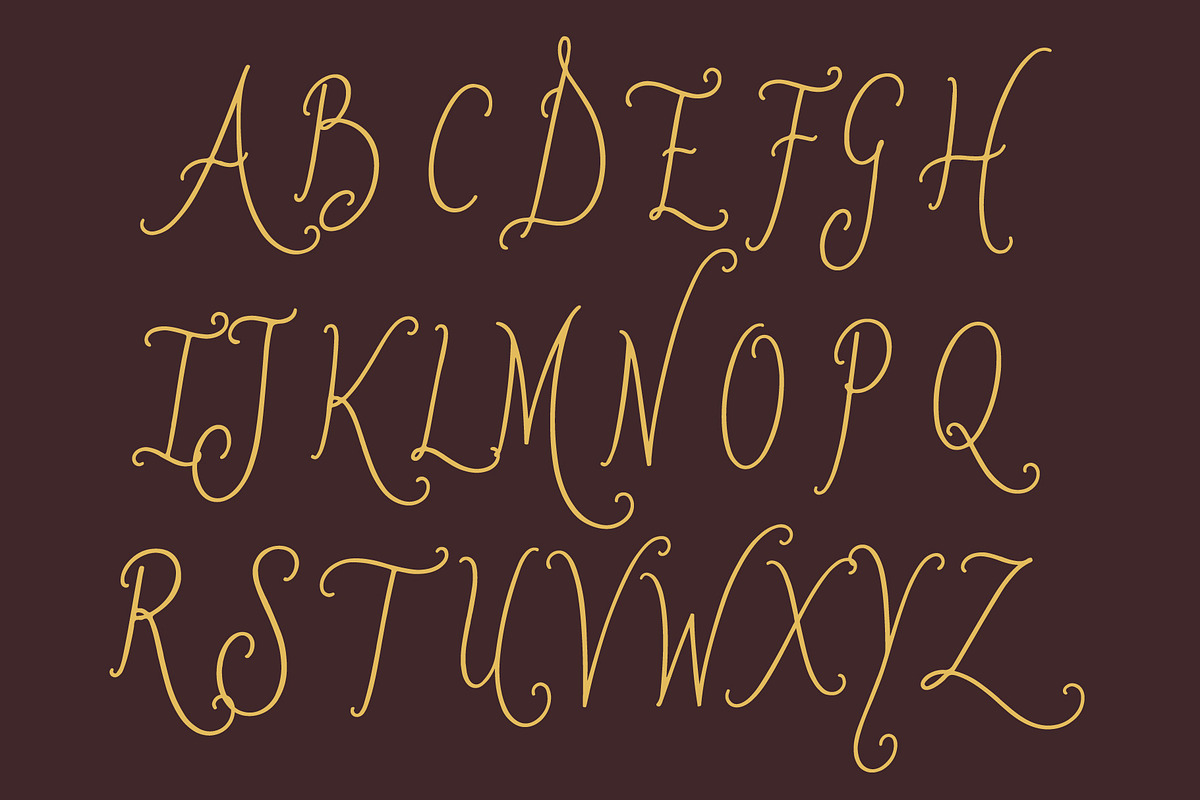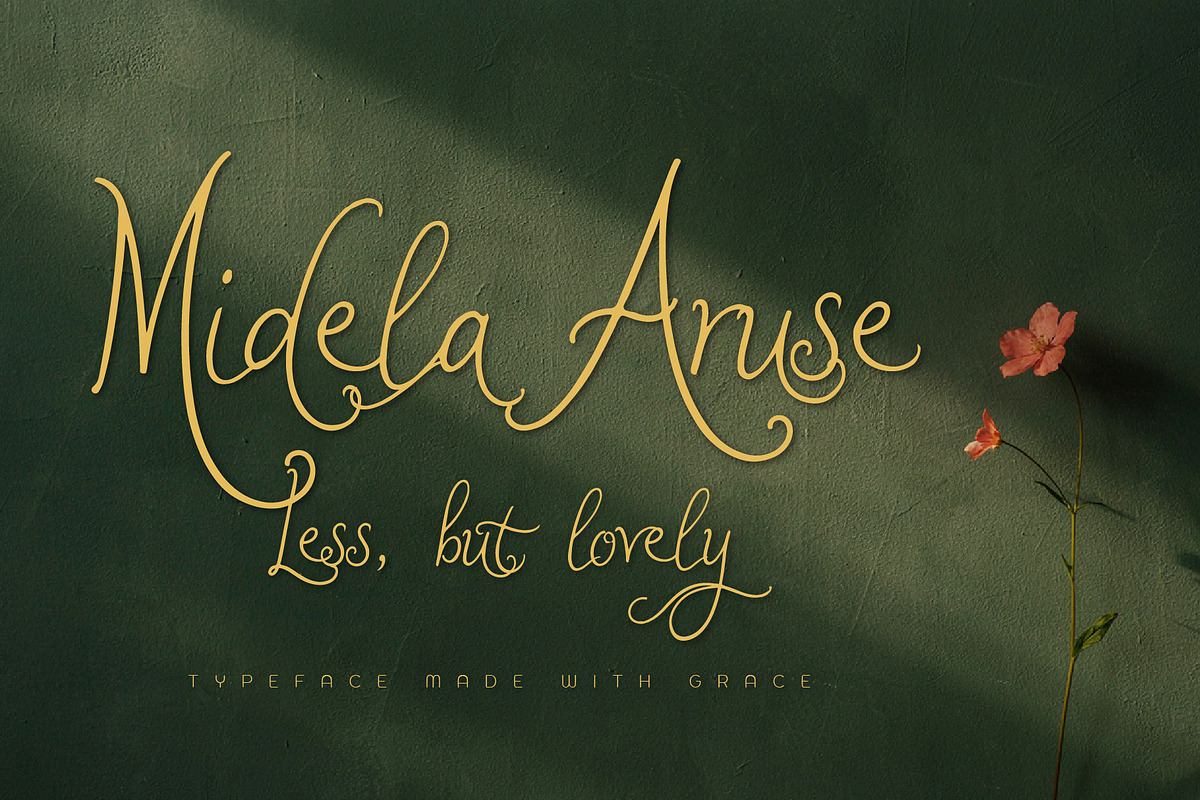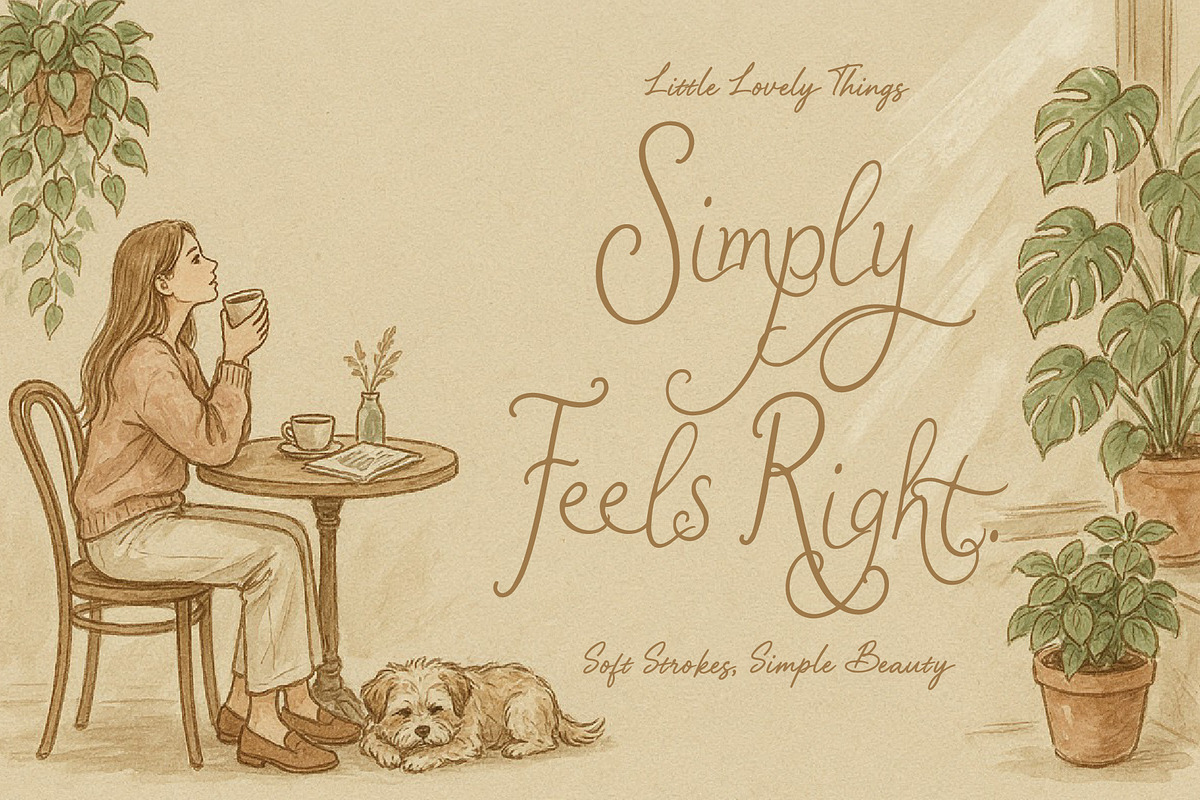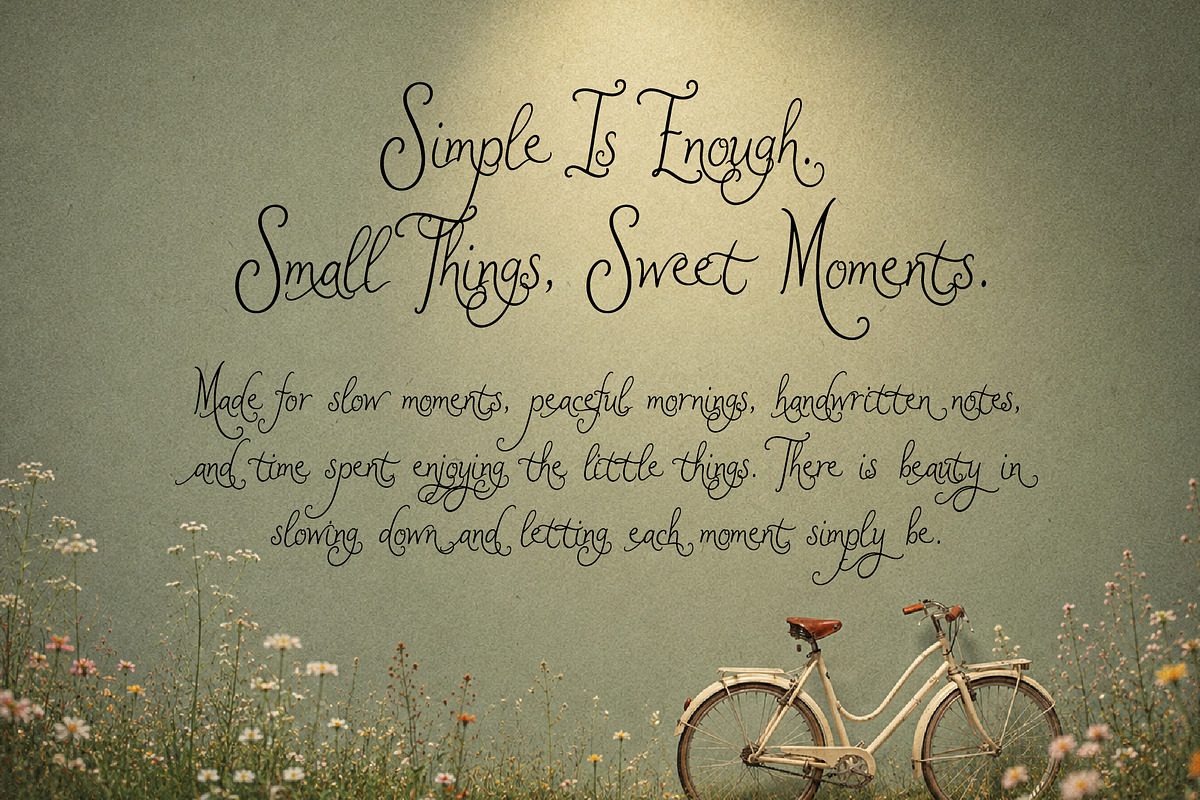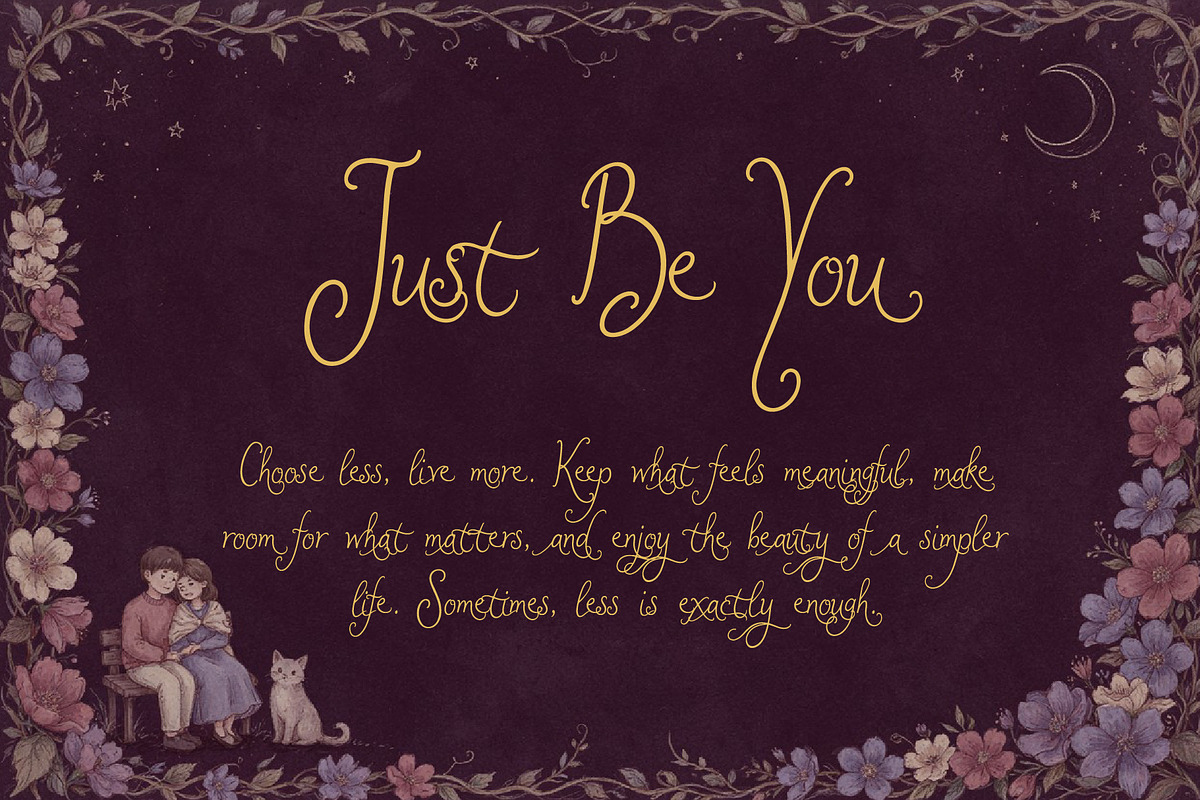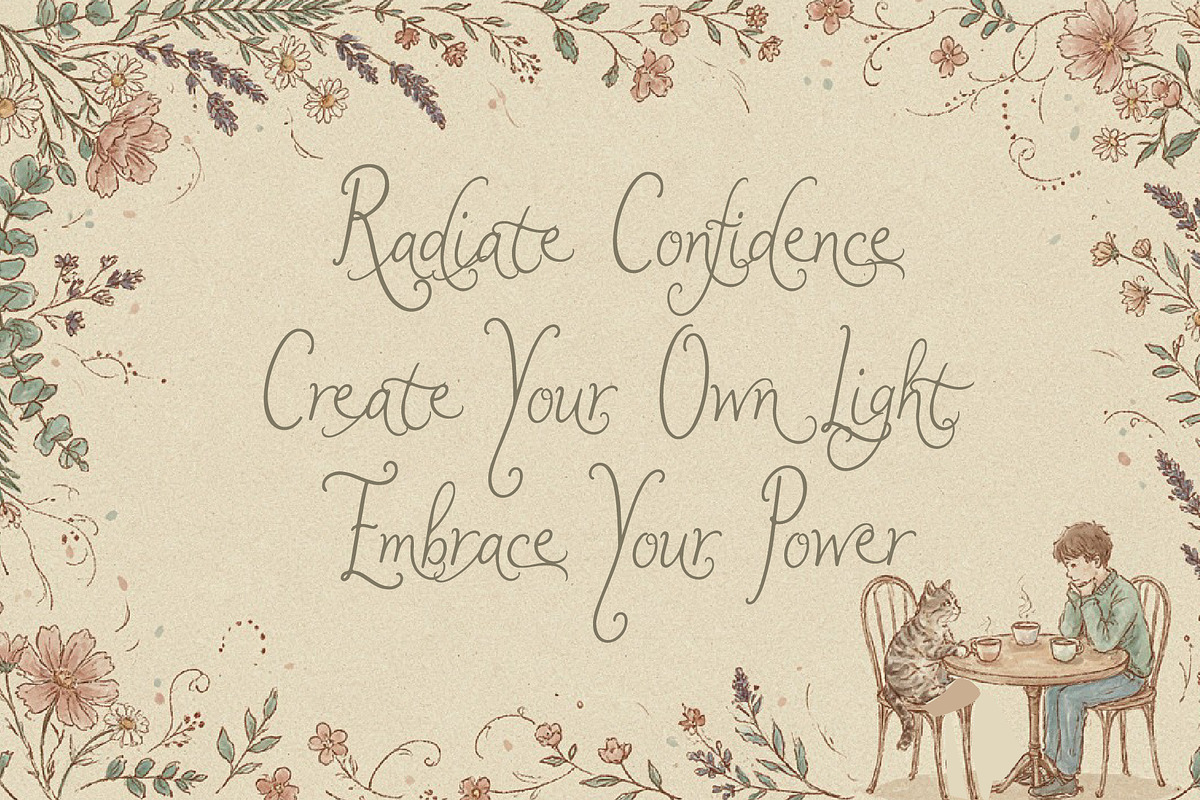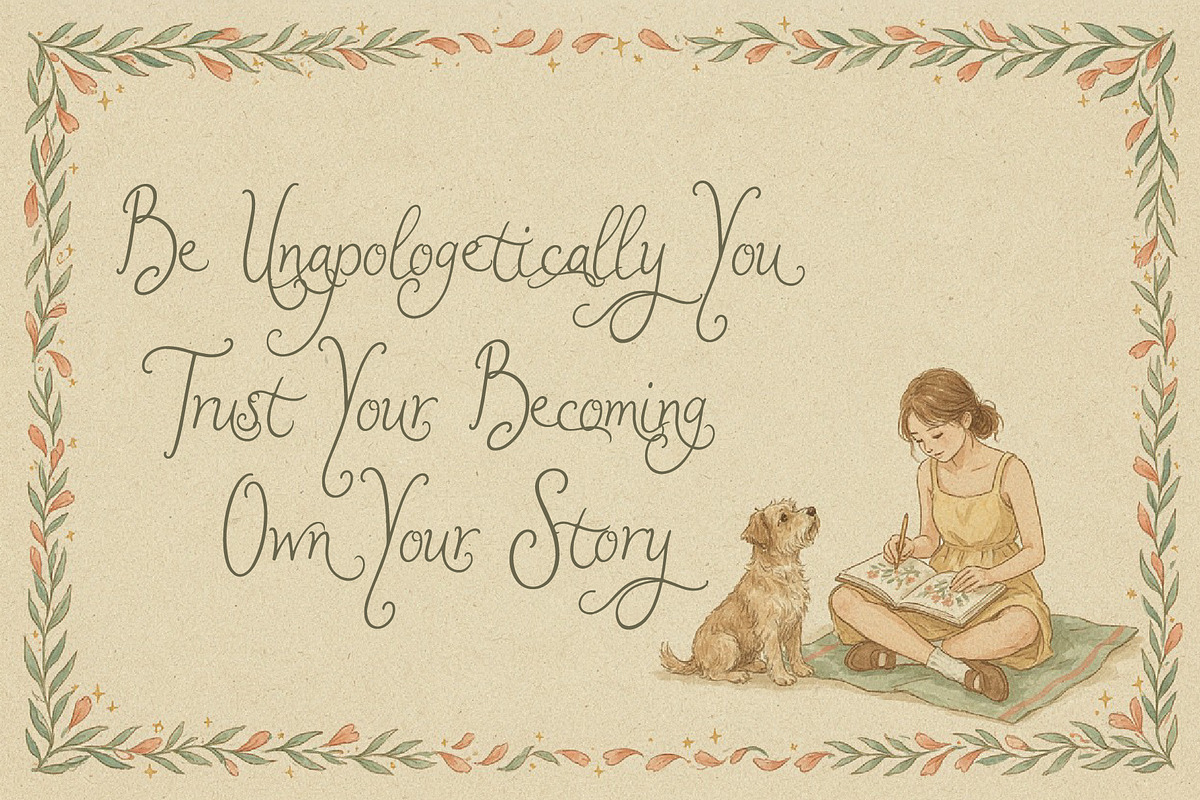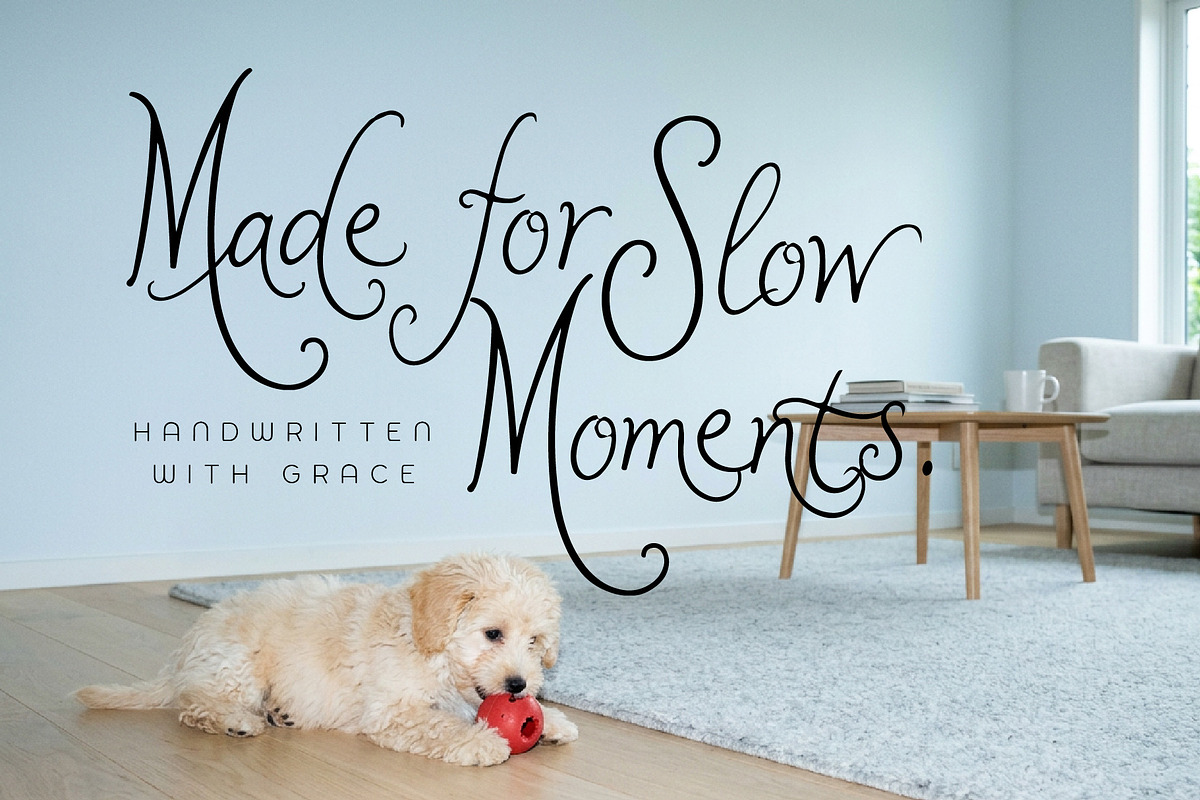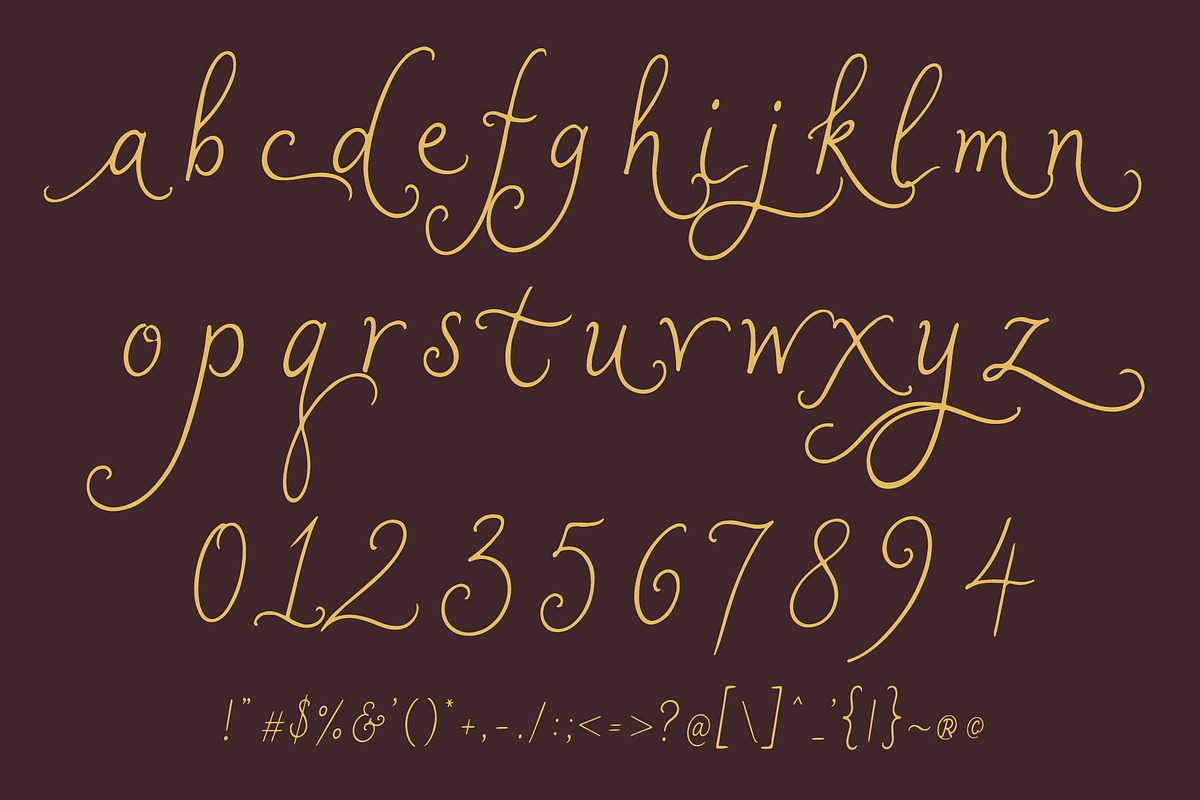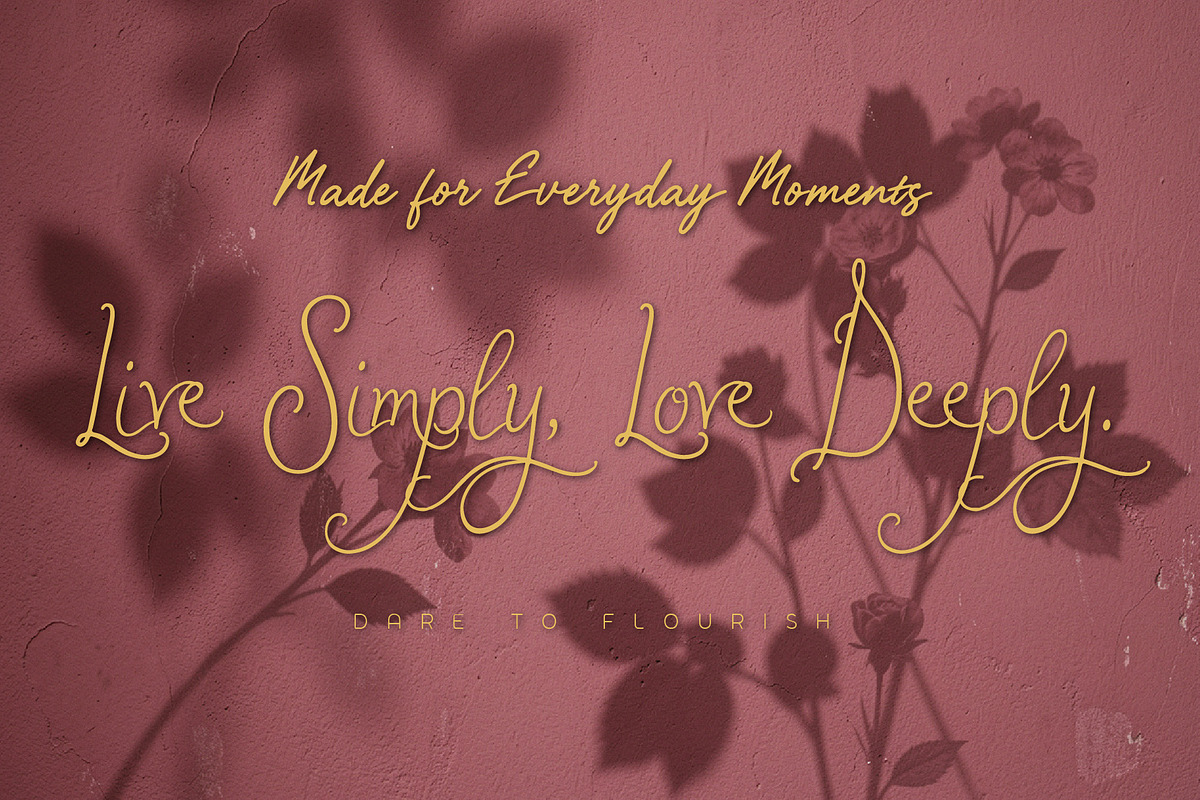
MidelaAruse - Simple Minimal Script
MidelaAruse is a chic and feminine handwritten script designed to bring a soft, effortless personality to your designs. Its smooth, natural strokes feel friendly, elegant, and beautifully minimal without looking overly formal.
Perfect for logos, branding, invitations, packaging, social media, fashion, beauty, stationery, and lifestyle projects. MidelaAruse adds a personal handwritten touch while keeping your design clean, modern, and effortlessly beautiful.